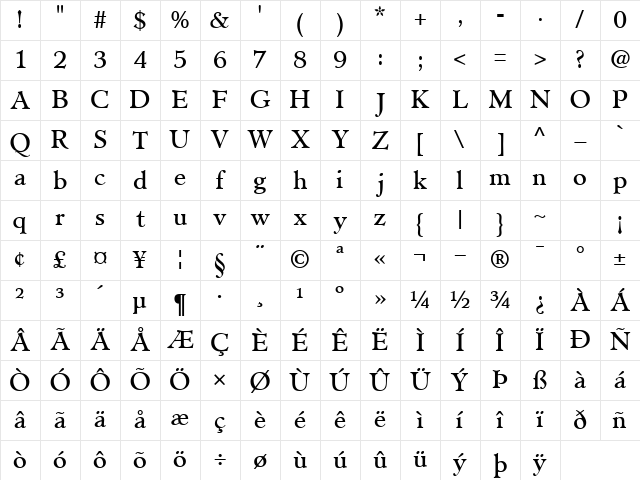
ClericSSK Regular
Design Context for ClericSSK
ClericSSK is a composed and adaptable typeface that performs quietly and consistently across a wide range of design contexts.
Pro Tip: Use ClericSSK in both headline and body roles to test its range before committing to a single application.